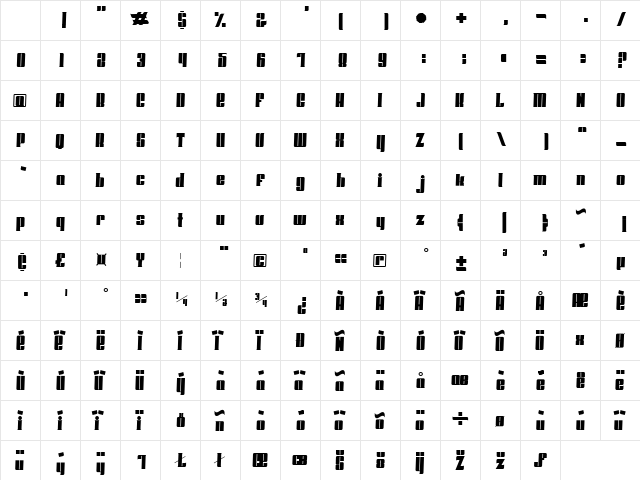
Hoods and Capers is a composed and adaptable typeface that performs quietly and consistently across a wide range of design contexts.
Pro Tip: Use Hoods and Capers in both headline and body roles to test its range before committing to a single application.